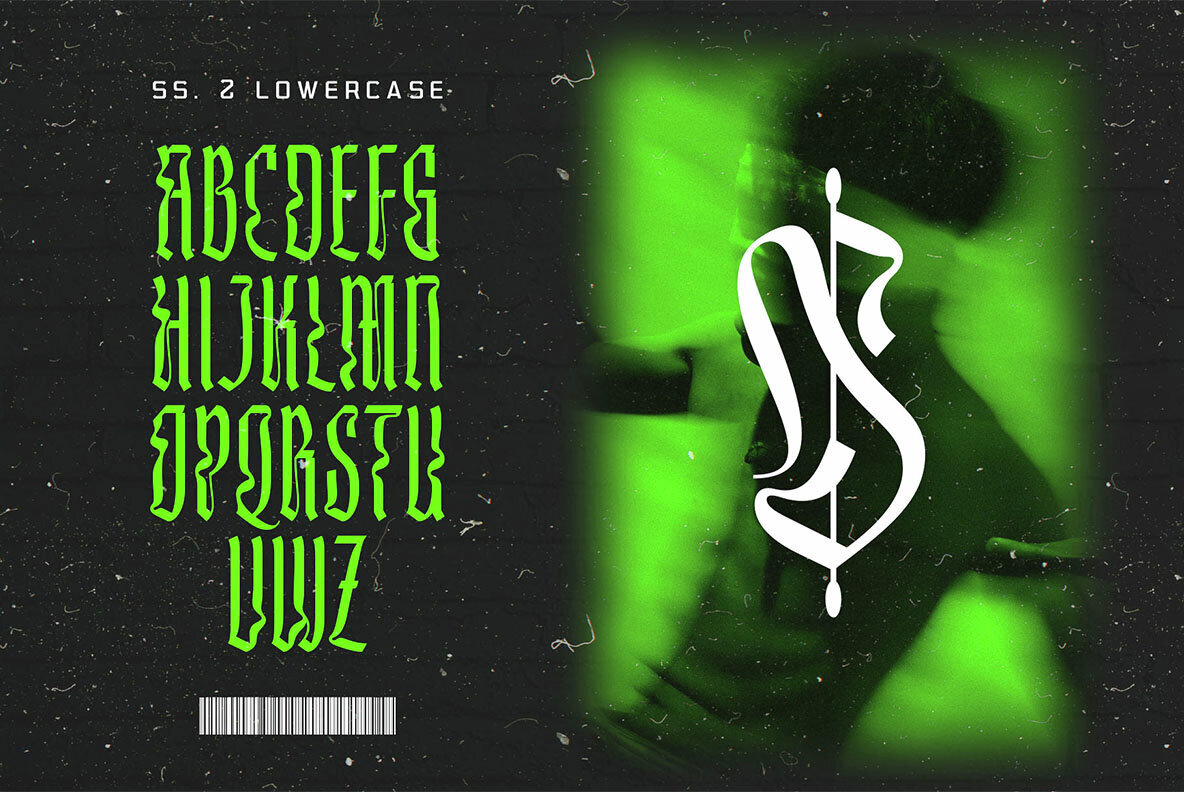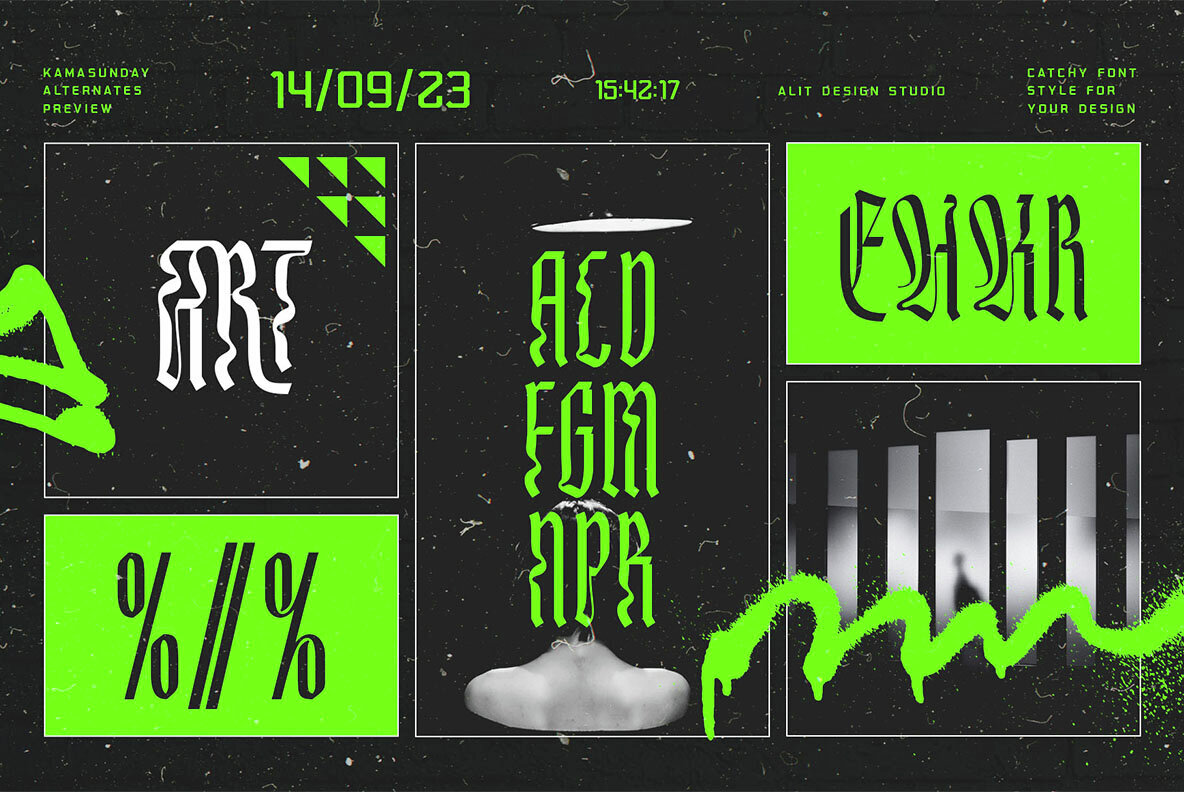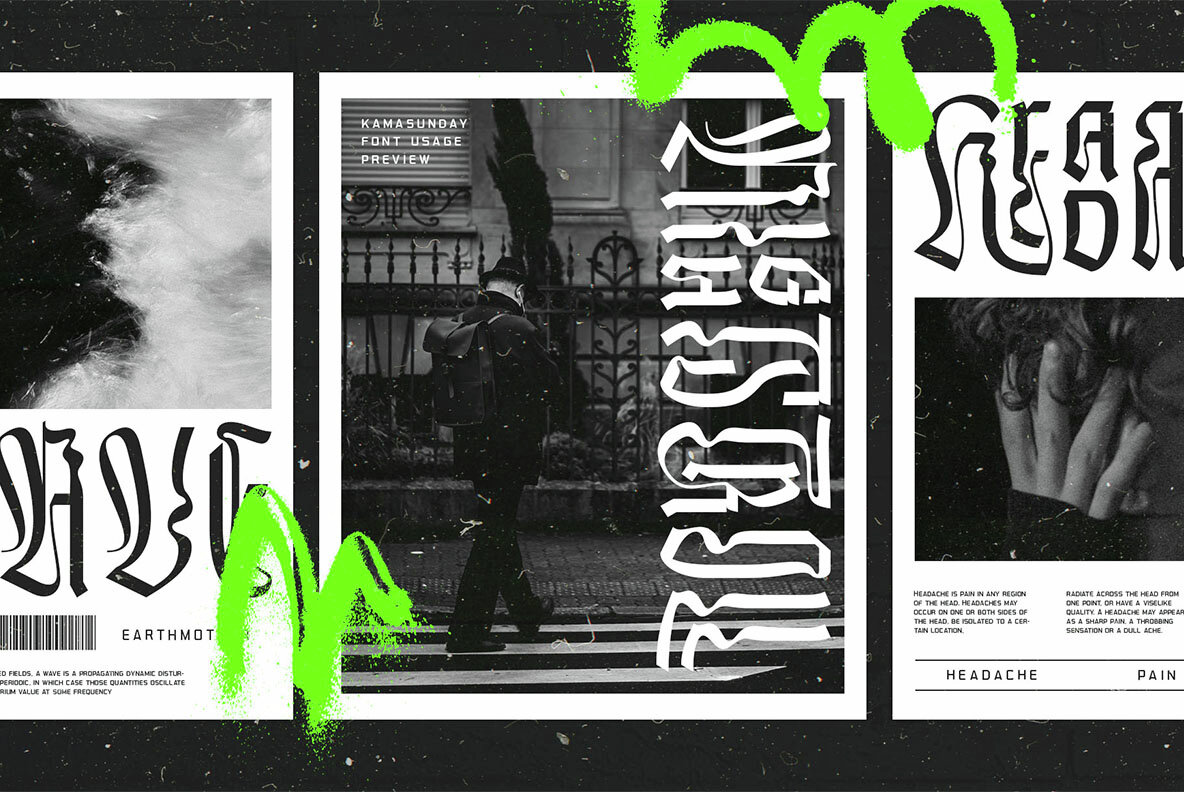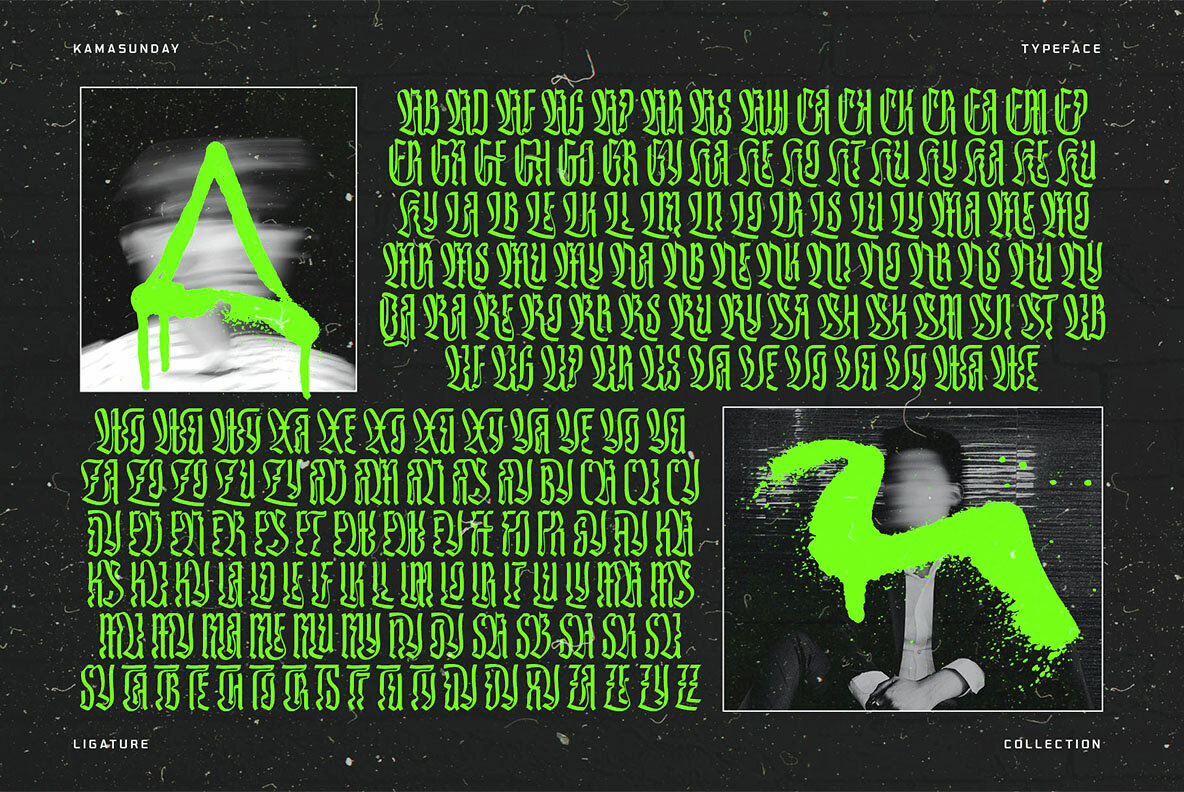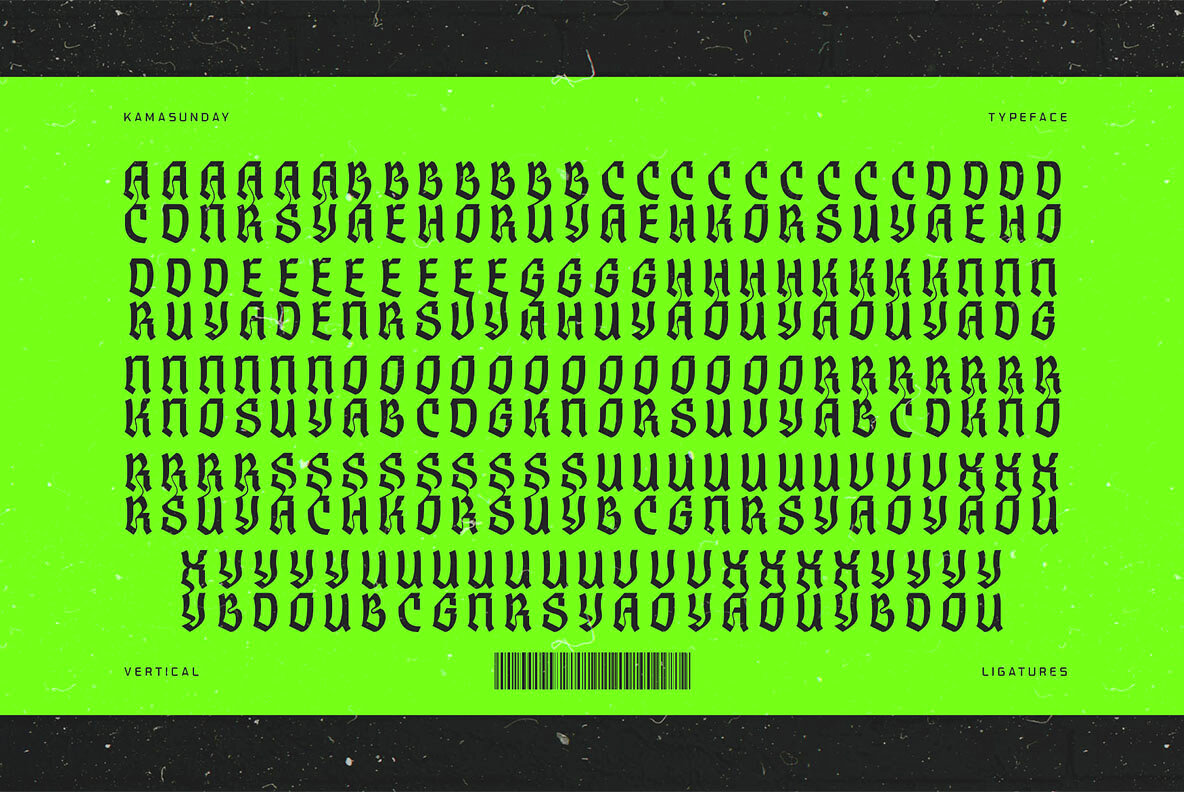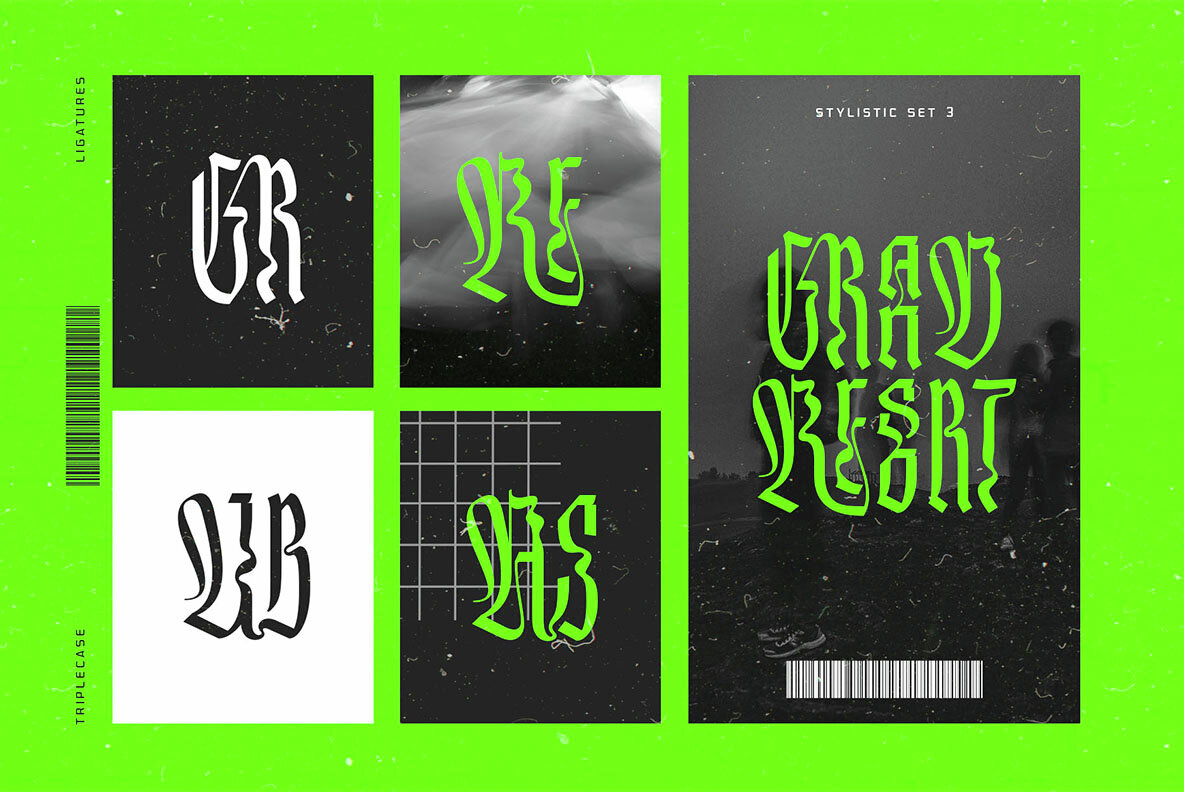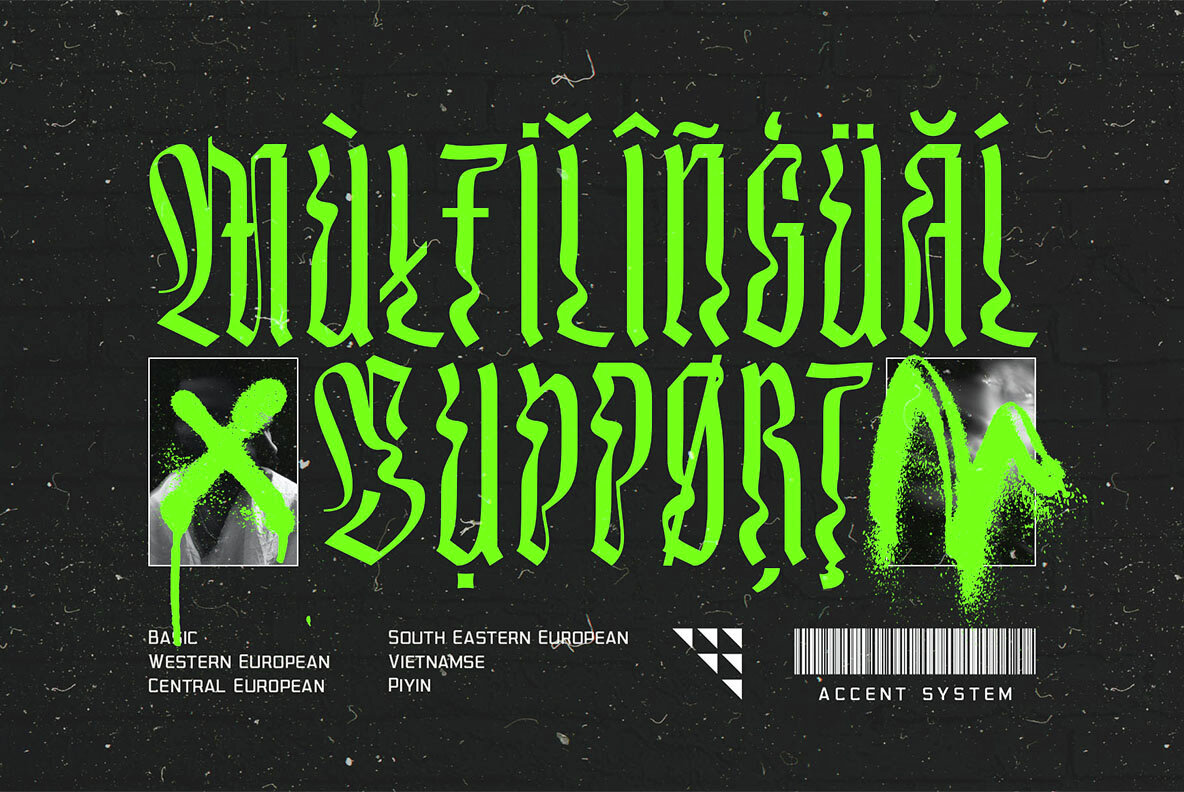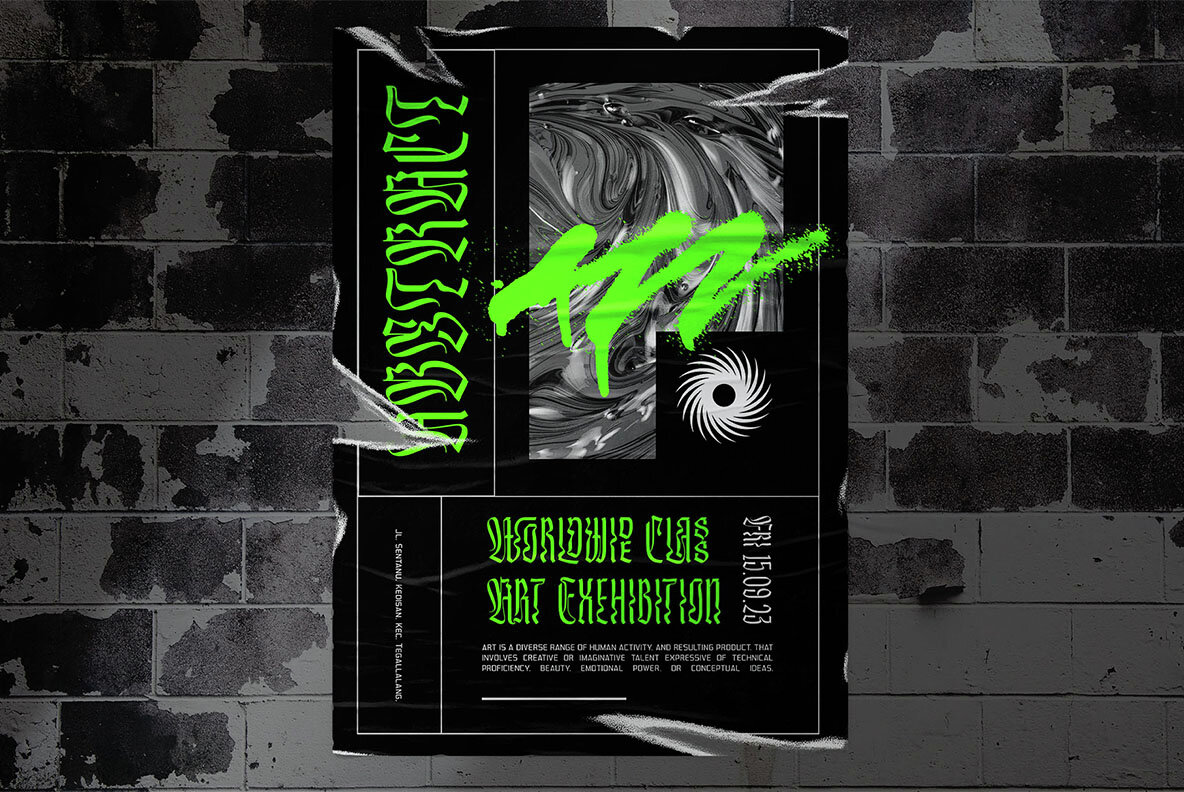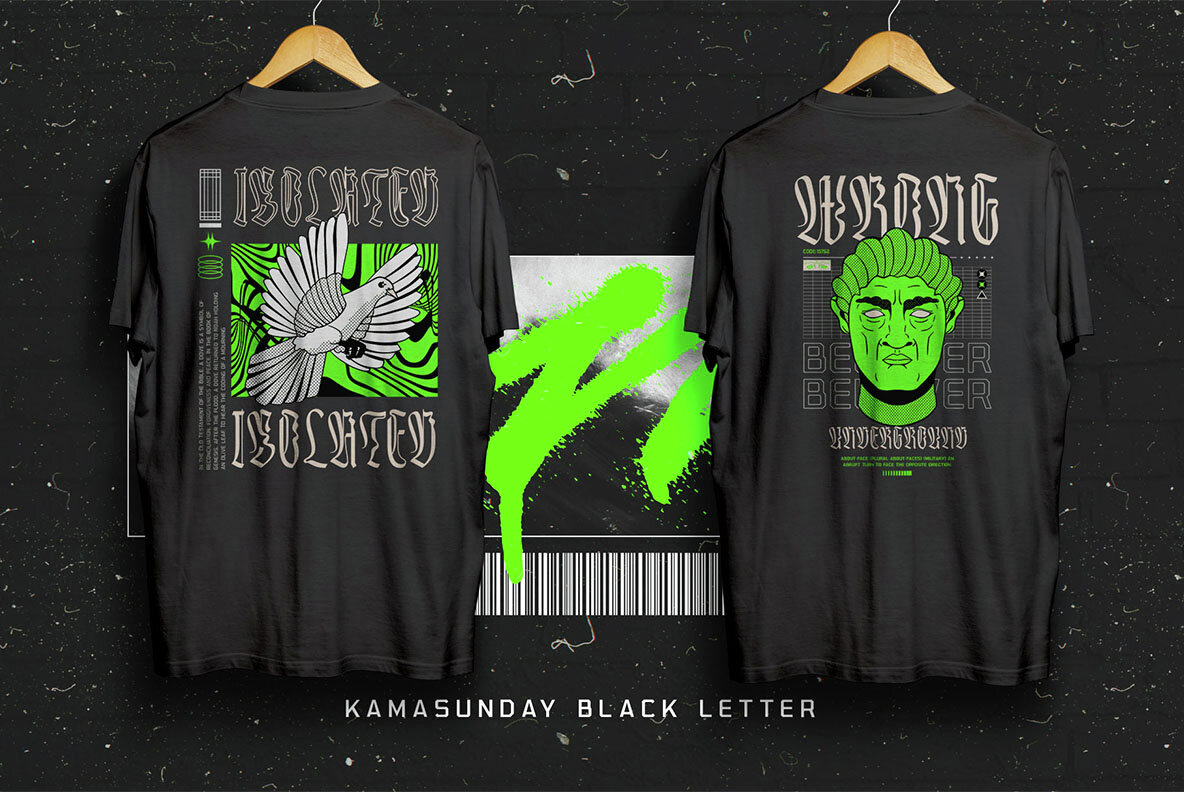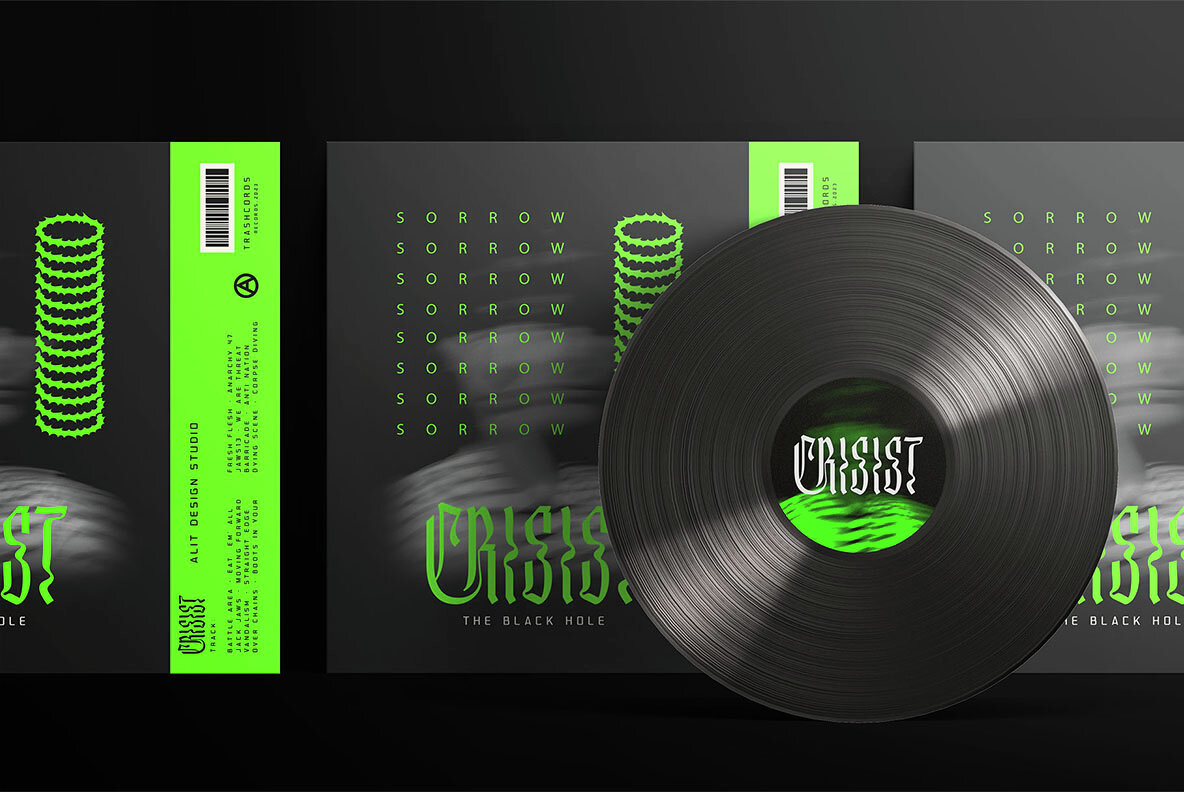
Kamasunday Font
Kamasunday Regular
Introducing Kamasunday Dynamic Blackletter, a typeface that seamlessly blends the timeless elegance of blackletter script with a modern, dynamic twist. This font is a perfect fusion of tradition and innovation, offering an impressive array of 837 meticulously crafted glyphs, ligatures, and alternates that will elevate your designs to new heights. Key Features: Dynamic Wave Design: Kamasunday Dynamic Blackletter features a captivating wave-like design that adds a sense of movement and energy to your text. Each character flows seamlessly into the next, creating a visually stunning and cohesive text. Modern Elegance: This font embodies the essence of modern elegance, making it perfect for a wide range of design projects, from branding and packaging to invitations and posters. Extensive Glyph Set: With a whopping 837 glyphs at your disposal, you have access to a vast selection of characters, including uppercase and lowercase letters, numerals, punctuation, and a variety of special characters, ensuring your design needs are met with versatility. Ligatures: Kamasunday Dynamic Blackletter includes an extensive set of ligatures, allowing you to achieve a more fluid and natural look in your text. These ligatures create seamless connections between characters for a polished and sophisticated appearance. Alternates: The font offers an abundance of alternate characters and swashes, giving you the creative freedom to experiment and customize your text. These alternates add an extra layer of uniqueness to your designs. Versatile Usage: Whether you're designing a vintage-inspired logo, a Gothic-themed poster, or a contemporary Music event poster, Kamasunday Dynamic Blackletter adapts beautifully to various design contexts. Timeless Appeal: While embracing modernity, this font retains the timeless charm of traditional blackletter script, making it a versatile choice for projects that demand a touch of history and sophistication.